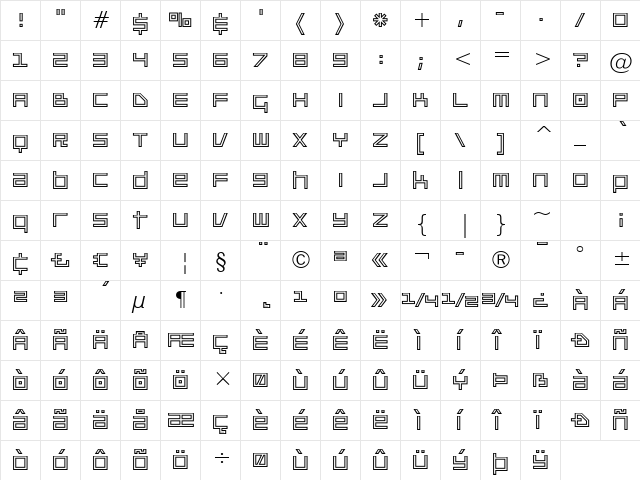
Platinum Beat BTN Outline Regular Font Preview
Platinum Beat BTN Outline Regular
Design Context for Platinum Beat BTN Outline Typeface
Platinum Beat BTN Outline is built around its visual character rather than neutral utility — its distinctive forms are designed to make an impression at display sizes.
Font Pairing: Pair with a clean neutral sans-serif for body copy to let Platinum Beat BTN Outline's character lead without overwhelming the composition.
Pro Tip: Treat Platinum Beat BTN Outline as the centrepiece of your typographic hierarchy. One strong heading set in a decorative face can carry an entire layout.